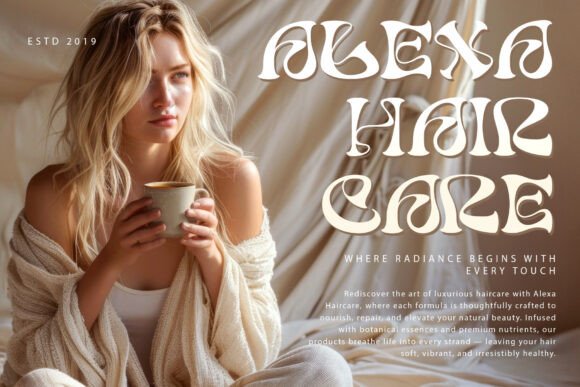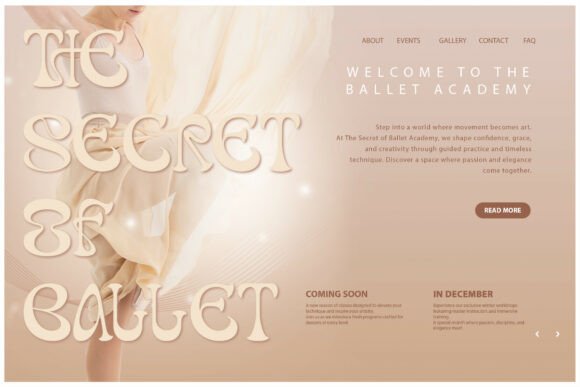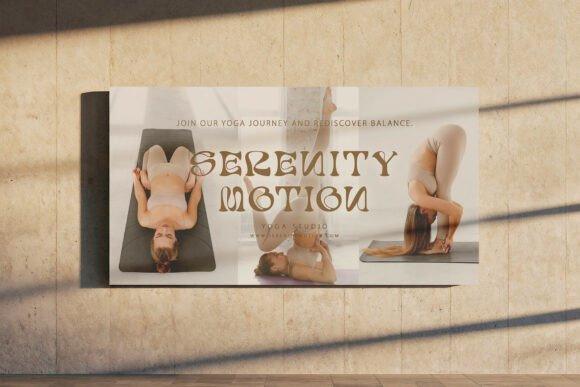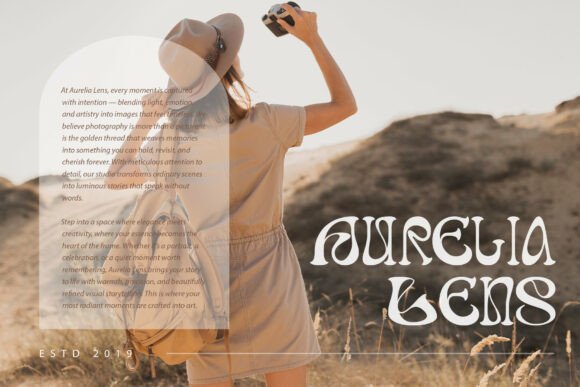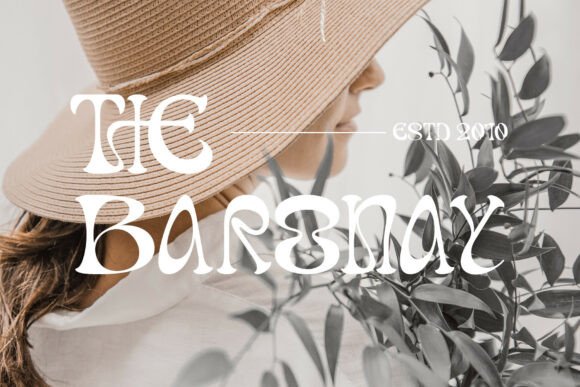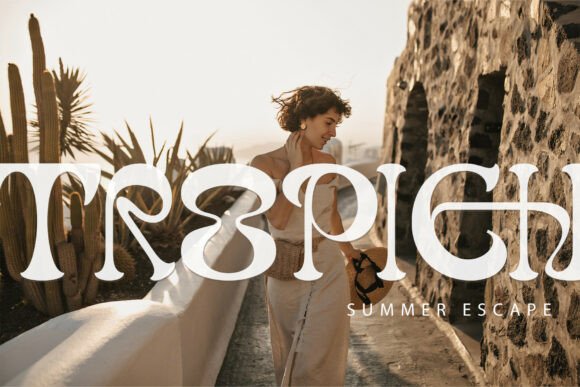
The Dreamy World of Luxury Typography
Imagine you’re strolling through a vintage flea market, surrounded by the musty smell of old books and the soft glow of neon lights. As you wander through the stalls, you stumble upon a beautifully crafted typographic poster that catches your eye. The elegant script, the flowing curves, and the intricate details all come together to create a sense of drama and refinement. This is the kind of typographic magic that the Dream Theatrion Font embodies.
Designed to evoke the sophisticated, groovy aesthetic of the 1960s and 1970s, the Dream Theatrion Font is a highly decorative display serif that exudes luxury and elegance. Its unique letterforms, characterized by exaggerated curves and sweeping strokes, are perfect for high-end branding, editorial layouts, and timeless design statements. Whether you’re a seasoned designer or just starting out, the Dream Theatrion Font is a valuable addition to your toolkit, offering a level of sophistication and refinement that’s hard to find elsewhere.
Dream Theatrion Font Key Features
- Font Family: Dream Theatrion Font is a unique, high-end font family that includes 4 styles (Regular, Italic, Bold, and Bold Italic) designed for theatrical and dramatic purposes.
- Unique Characteristics: The font features a distinctive, hand-drawn feel with intricate details and ornaments, making it perfect for titles, headings, and dramatic text.
Dream Theatrion Font Review
Overall, I’m quite impressed with the Dream Theatrion font. It has a unique, elegant aesthetic that’s perfect for theatrical or dramatic projects. ✨
- Its fluid connections between letters create a smooth reading experience.
- The subtle flair on the uppercase letters adds a touch of sophistication.
- The font is well-suited for large displays and titles, making it a great choice for movie posters or playbills.
- It’s available in a range of weights, from light to bold, offering flexibility for different design applications.
- ⚠️ The font can be difficult to read at smaller sizes, making it less suitable for body text or fine print.
- ⚠️ Some characters, such as the lowercase ‘a’ and ‘e’, have a relatively narrow width, which can cause spacing issues in certain layouts.
In conclusion, while the Dream Theatrion font has its limitations, its unique design and elegant aesthetic make it a great choice for the right projects. With careful consideration of font size and spacing, this font can add a touch of drama and sophistication to any design.
To get the most out of the Dream Theatrion font, try using it in combination with bold or italic text to add emphasis.
Use the font to create a sense of drama or elegance in your designs.
The Dream Theatrion font is perfect for:
Movie or theater-themed designs.
Formal invitations or announcements.
Book covers or title pages.